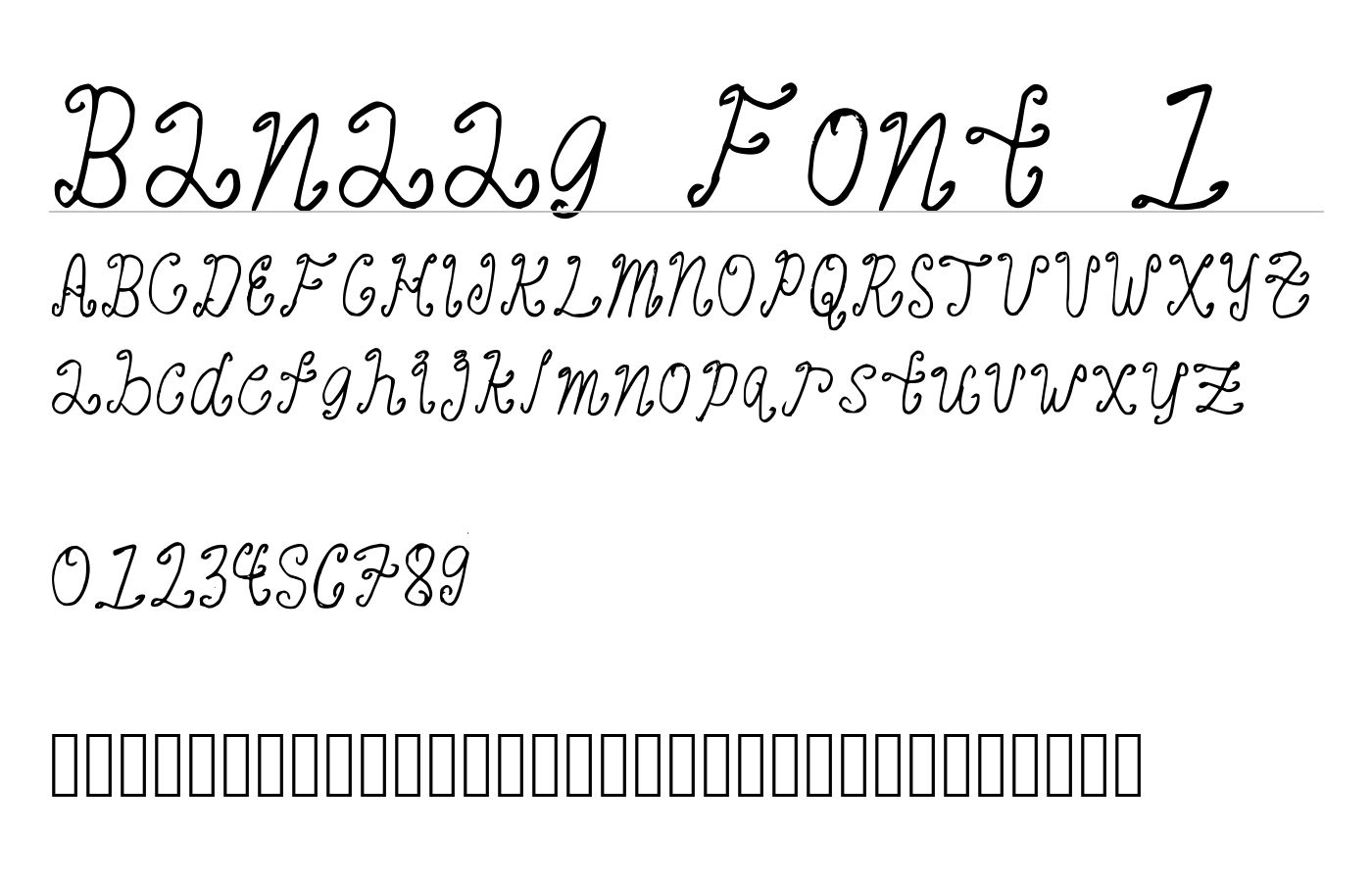
Banaag Font 1 is a delicate, whimsical script typeface characterized by its thin, flowing strokes and playful curls on terminals, giving it a hand-drawn, artistic feel. Its light weight and narrow structure make it ideal for invitations, greeting cards, and creative branding that seek a charming, elegant, yet informal touch. This font works best in decorative headlines and short texts where its unique personality can truly shine without compromising readability.